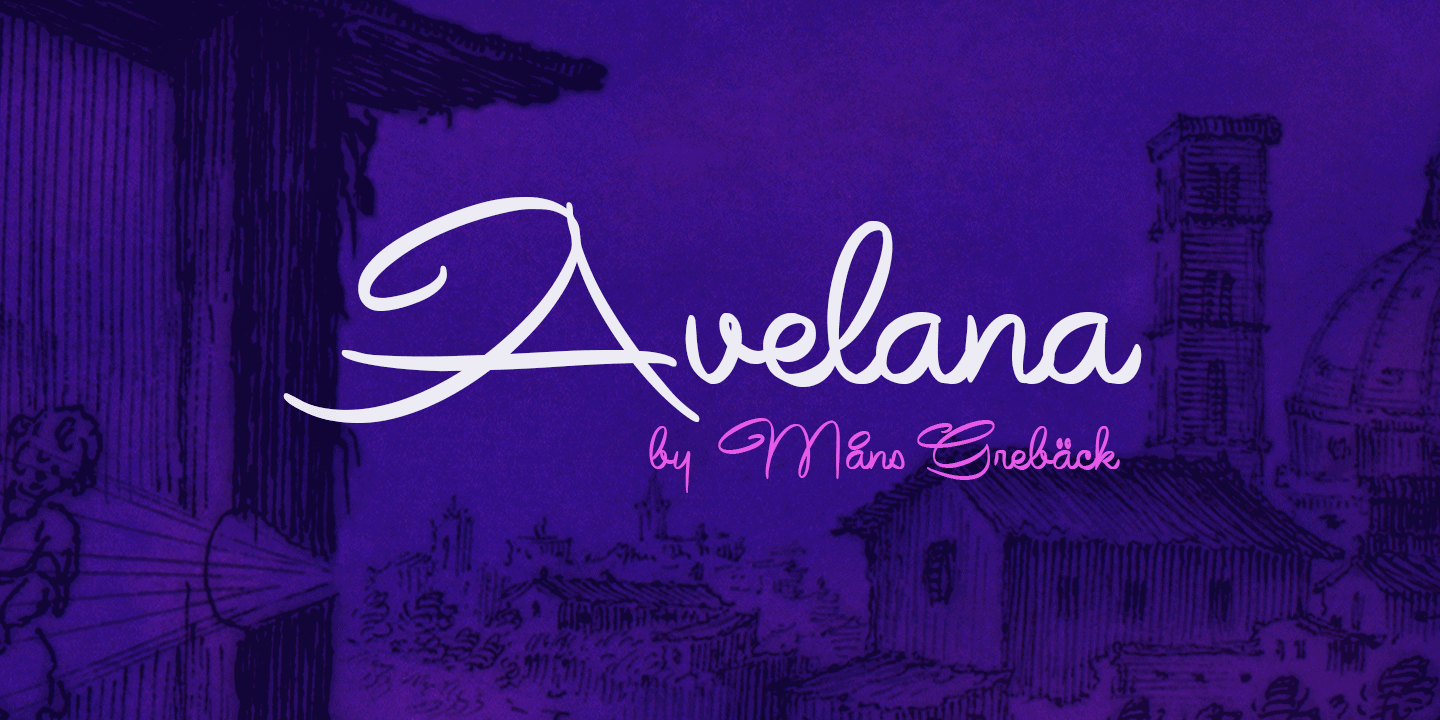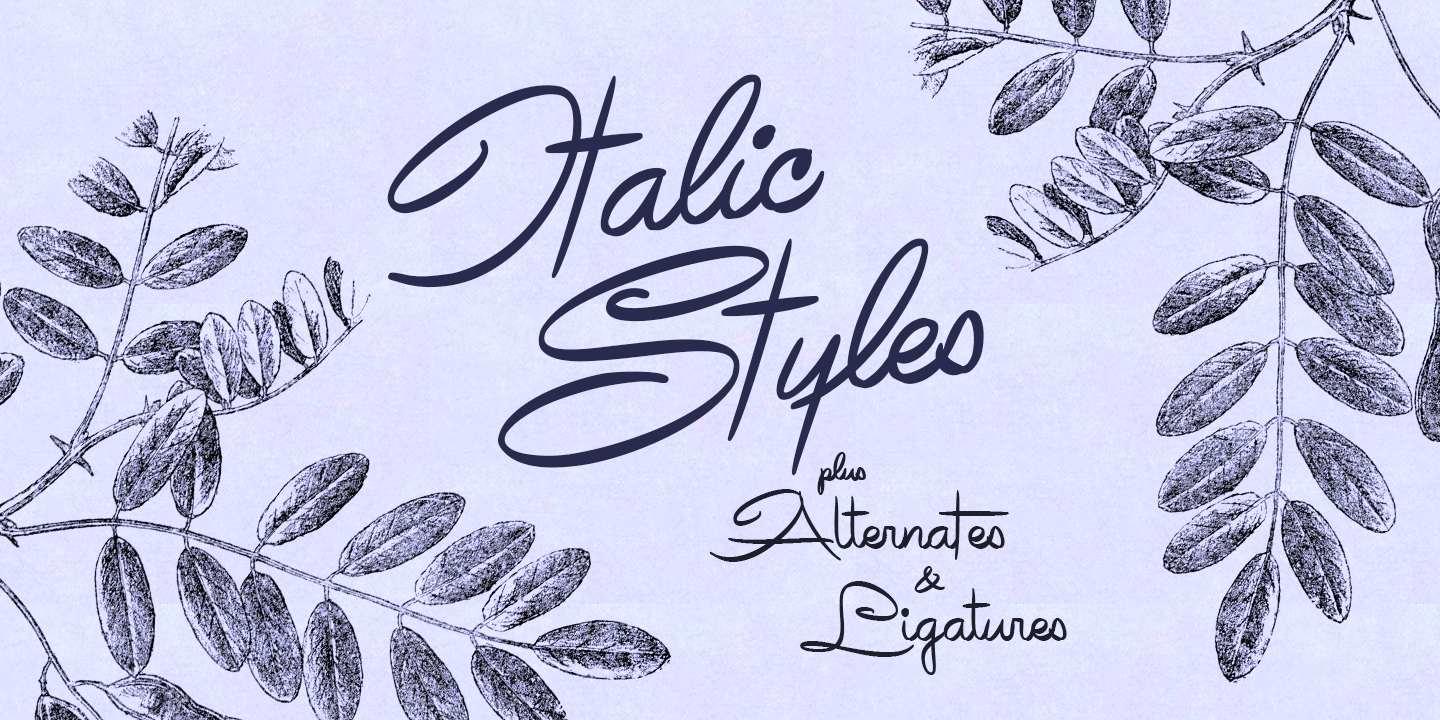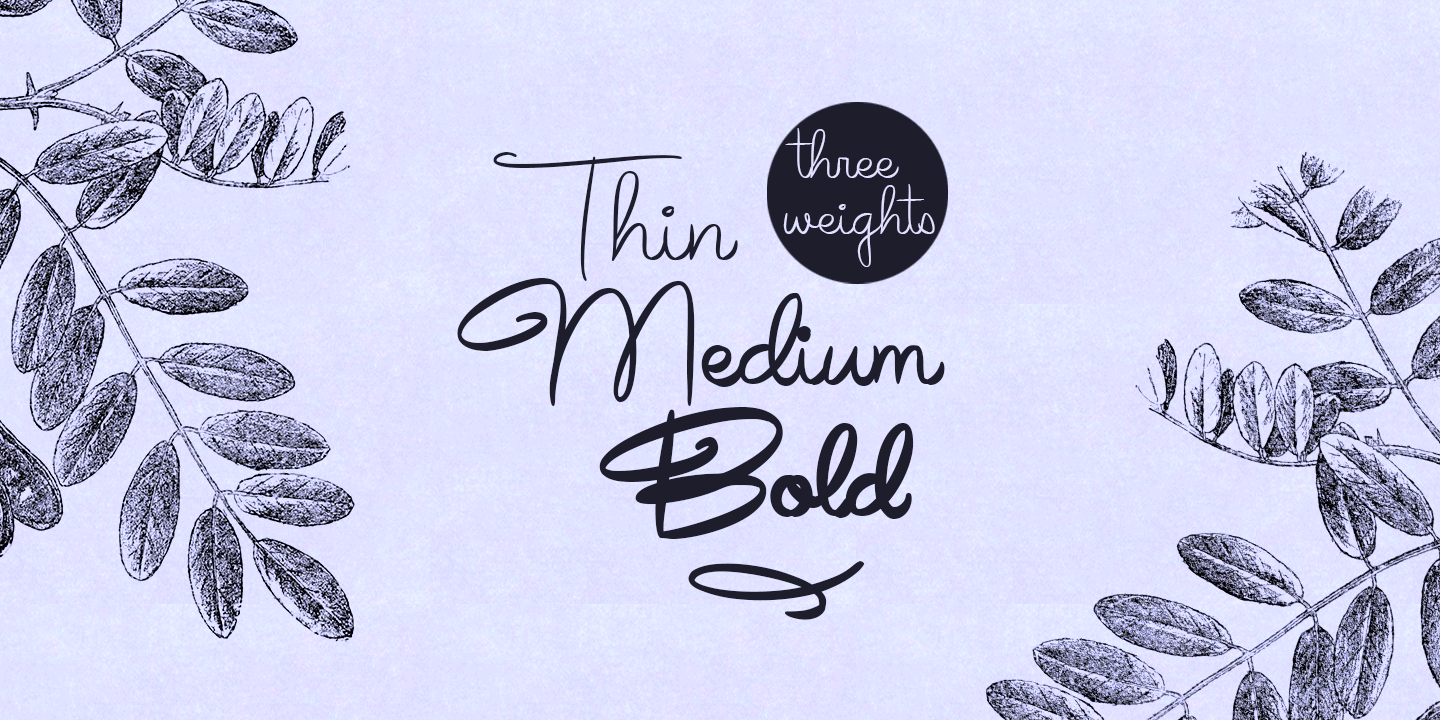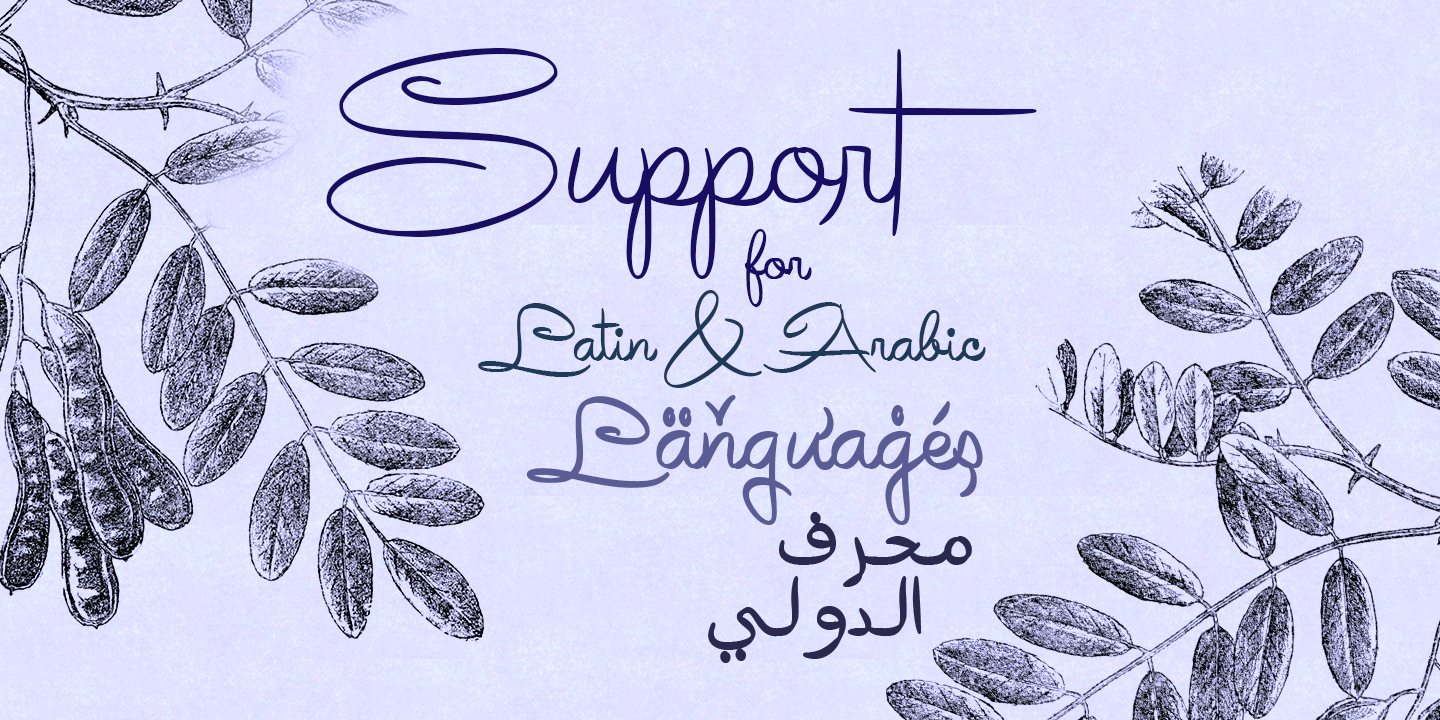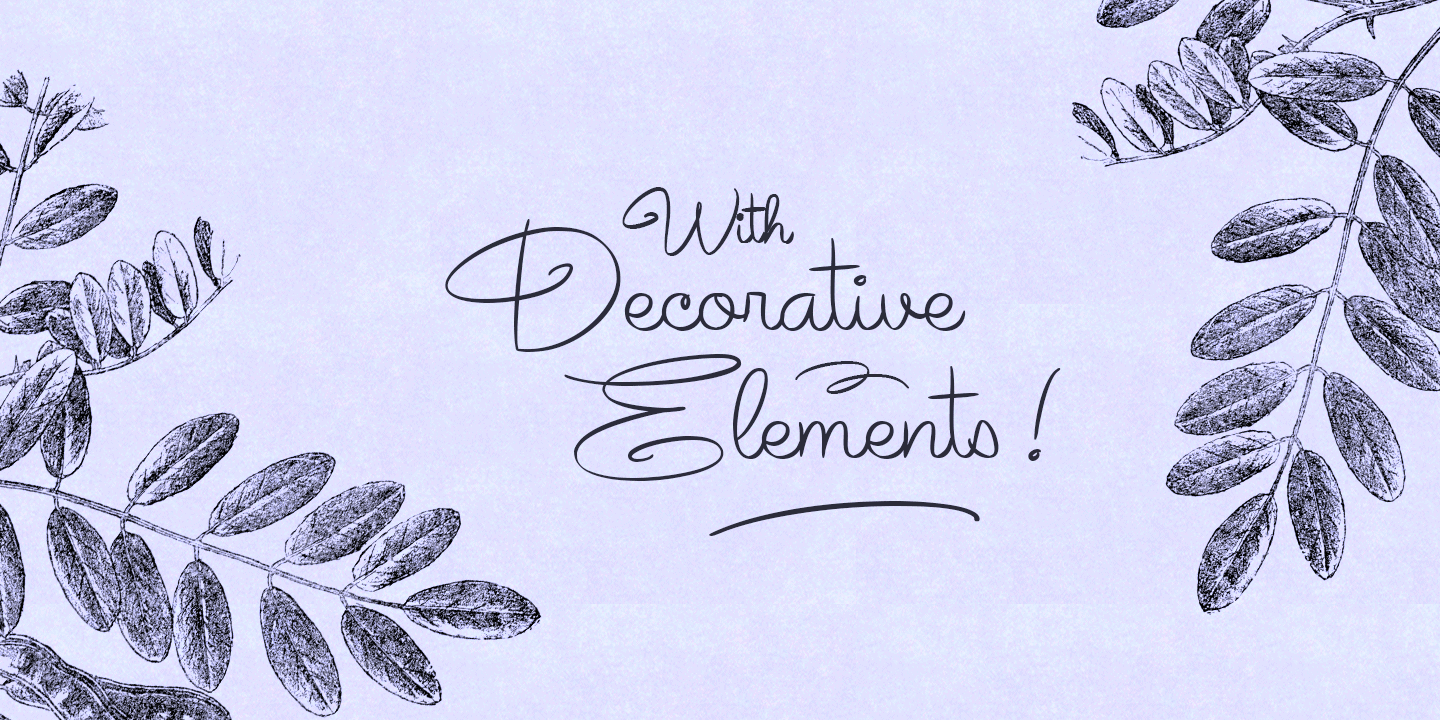
Avelana
Avelana is a brush script typeface in true mid-1900s fashion.
Hand-drawn by Måns Grebäck during 2018, this high-quality typeface comes in six styles. It has three weights, Avelana Thin, Avelana Medium, Avelana Bold, and each of the thicknesses as Italic.
The typeface is perfected for headlines and logotypes where you want a handwritten style.
The font supports almost all Latin based languages, as well as Arabic. In addition to that, it contains all punctuation and symbols you’ll ever need. It also comes with ligatures, contextual alternates and stylistic alternates. As a bonus, you’ll get a font with matching swashes and decorative elements.